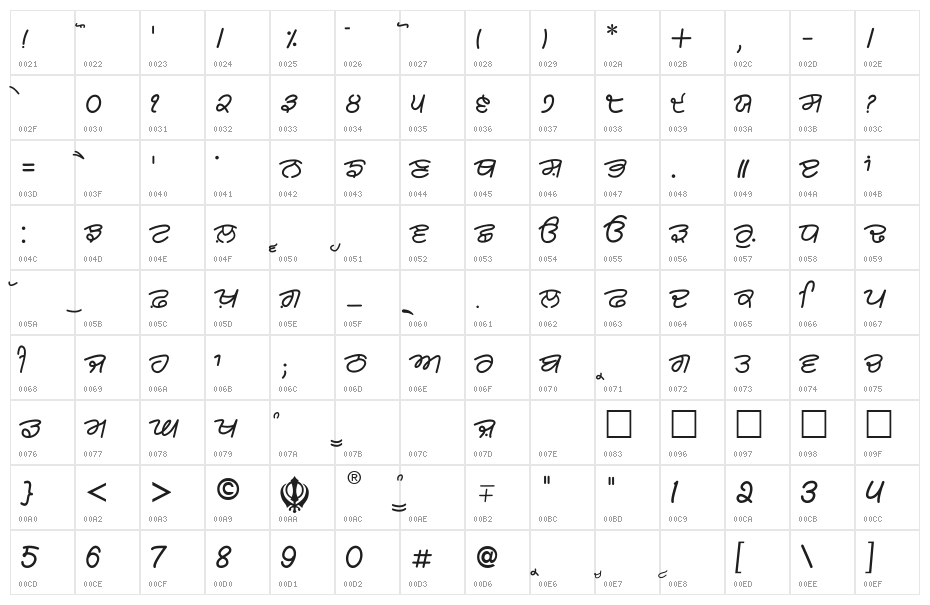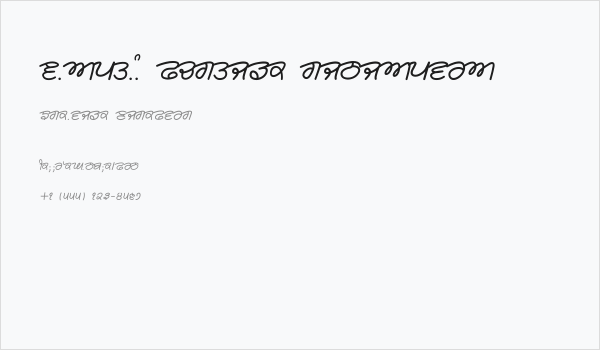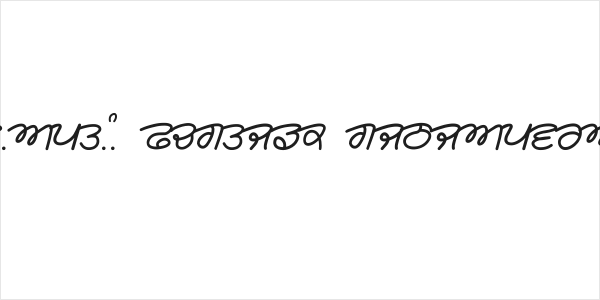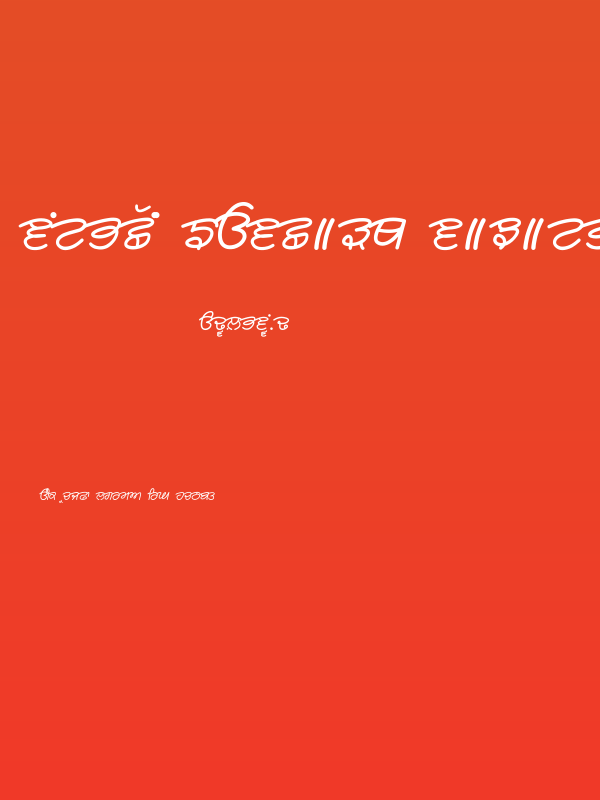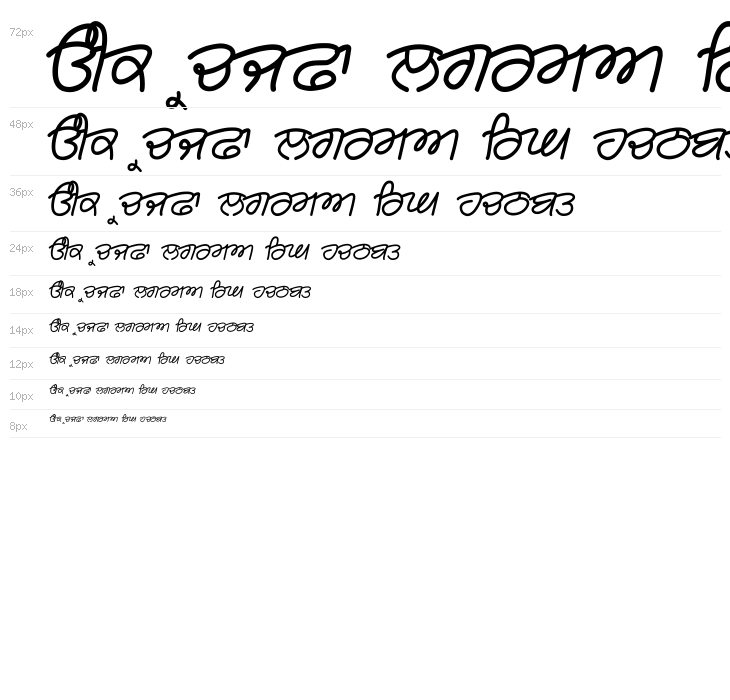
Rangsaaz cursive rimington Font
Rangsaaz cursive rimington Description
This font features a flowing, cursive style with a distinct handwritten appearance. The characters are interconnected, creating a seamless and elegant script. The strokes are smooth and rounded, with a consistent thickness throughout, giving it a harmonious and fluid look. The font includes a full set of letters, numbers, and a variety of special characters, making it versatile for different uses. Its design is reminiscent of traditional calligraphy, yet it maintains a modern touch, making it suitable for both classic and contemporary projects.
| Proposed Projects | Ideal for wedding invitations, greeting cards, personal branding, and artistic projects that require a touch of elegance and sophistication. |